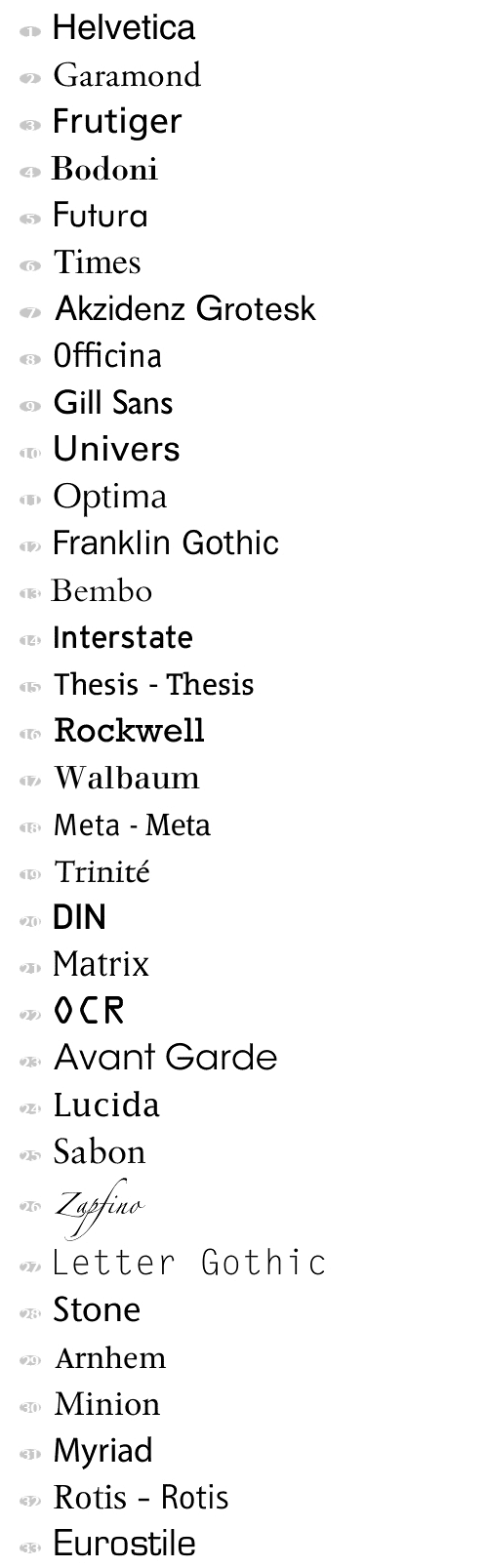
Top 100 Best Fonts Of All Time
1. Helvetica [1957 - Max Miedinger]
2. Garamond [1530 - Claude Garamond]
3. Frutiger [1977 - Adrian Frutiger]
4. Bodoni [1790 - Giambattista Bodoni]
5. Futura [1927 - Paul Renner]
6. Times [1931 - Stanley Morison]
7. Akzidenz Grotesk [1966 - G nter Gerhard Lange]
8. Officina [1990 - Erik Spiekermann]
9. Gill Sans [1930 - Eric Gill]
10. Univers [1954 - Adrian Frutiger]
11. Optima [1954 - Hermann Zapf]
12. Franklin Gothic [1903 - Morris Fuller Benton]
13. Bembo [1496 - Francesco Griffo]
14. Interstate [1993 - Tobias Frere-Jones]
15. Thesis [1994 - Lucas de Groot]
16. Rockwell [1934 - Frank H. Pierpont]
17. Walbaum [1800 - Justus Walbaum]
18. Meta [1991 - Erik Spiekermann]
19. Trinit [1982 - Bram De Does]
20. Din [1926 - Ludwig Goller]
21. Matrix [1986 - Zuzana Licko]
22. OCR [1965 - American Type Founders]
23. Avant Garde [1968 - Herb Lubalin]
24. Lucida [1985 - Chris Holmes / Charles Bigelow]
25. Sabon [1964 - Jan Tschichold]
26. Zapfino [1998 - Hermann Zapf]
27. Letter Gothic [1956 - Roger Roberson]
28. Stone [1987 - Summer Stone]
29. Arnhem [1998 - Fred Smeijers]
30. Minion [1990 - Robert Slimbach]
31. Myriad [1992 - Twombly & Slimbach]
32. Rotis [1988 - Olt Aicher]
33. Eurostile [1962 - Aldo Novarese]
34. Scala [1991 - Martin Majoor]
35. Syntax [1968 - Hans Eduard Meier]
36. Joanna [1930 - Eric Gill]
37. Fleishmann [1997 - Erhard Kaiser]
38. Palatino [1950 - Hermann Zapf]
39. Baskerville [1754 - John Baskerville]
40. Fedra [2002 - Peter Bil'ak]
41. Gotham [2000 - Tobias Frere-Jones]
42. Lexicon [1992 - Bram De Does]
43. Hands [1991 - Letterror]
44. Metro [1929 - W. A. Dwiggins]
45. Didot [1799 - Firmin Didot]
46. Formata [1984 - Bernd M llenst dt]
47. Caslon [1725 - William Caslon]
48. Cooper Black [1920 - Oswald B. Cooper]
49. Peignot [1937 - A. M. Cassandre]
50. Bell Gothic [1938 - Chauncey H. Griffith]
51. Antique Olive [1962 - Roger Excoffon]
52. Wilhelm Klngspor Gotisch [1926 - Rudolf Koch]
53. Info [1996 - Erik Spiekermann]
54. Dax [1995 - Hans Reichel]
55. Proforma [1988 - Petr van Blokland]
56. Today Sans [1988 - Volker K ster]
57. Prokyon [2002 - Erhard Kaiser]
58. Trade Gothic [1948 - Jackson Burke]
59. Swift [1987 - Gerald Unger]
60. Copperplate Gothic [1901 - Frederic W. Goudy]
61. Blur [1992 - Neville Brody]
62. Base [1995 - Zuzana Licko]
63. Bell Centennial [1978 - Matthew Carter]
64. News Gothic [1908 - Morris Fuller Benton]
65. Avenir [1988 - Adrian Frutiger]
66. Bernhard Modern [1937 - Lucian Bernhard]
67. Amplitude [2003 - Christian Schwartz]
68. Trixie [1991 - Erik van Blokland]
69. Quadraat [1992 - Fred Smeijers]
70. Neutraface [2002 - Christian Schwartz]
71. Nobel [1929 - Sjoerd de Roos]
72. Industria [1990 - Neville Brody]
73. Bickham Script [1997 - Richard Lipton]
74. Bank Gothic [1930 - Morris Fuller Benton]
75. Corporate ASE [1989 - Kurt Weidemann]
76. Fago [2000 - Ole Schafer]
77. Trajan [1989 - Carol Twombly]
78. Kabel [1927 - Rudolf Koch]
79. House Gothic 23 [1995 - Tal Leming]
80. Kosmik [1993 - Letterror]
81. Caecilia [1990 - Peter Matthias Noordzij]
82. Mrs Eaves [1996 - Zuzana Licko]
83. Corpid [1997 - Lucas de Groot]
84. Miller [1997 - Matthew Carter]
85. Souvenir [1914 - Morris Fuller Benton]
86. Instant Types [1992 - Just van Rossum]
87. Clarendon [1845 - Benjamin Fox]
88. Triplex [1989 - Zuzana Licko]
89. Benguiat [1989 - Ed Benguiat]
90. Zapf Renaissance [1984 - Hermann Zapf]
91. Filosofia [1996 - Zuzana Licko]
92. Chalet [1996 - House Industries]
93. Quay Sans [1990 - David Quay]
94. C zanne [1995 - Michael Want, James Grieshaber]
95. Reporter [1938 - Carlos Winkow]
96. Legacy [1992 - Ronald Arnholm]
97. Agenda [1993 - Greg Thompson]
98. Bello [2004 - Underware]
99. Dalliance [2000 - Frank Heine]
100. Mistral [1953 - Roger Excoffon]